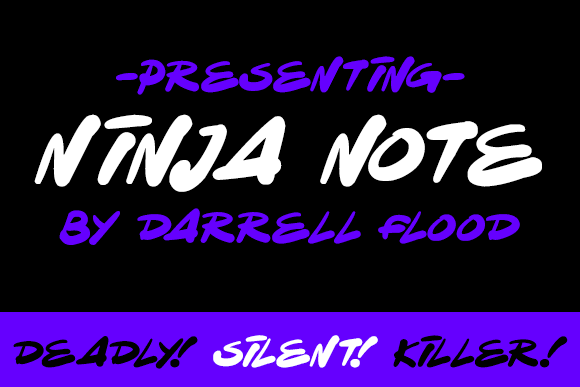
Free Ninja Note Font
Today we're glad to feature this free ninja note font. Font Space has created this amazing and beautiful free typeface. This is absolutely fancy font so you can easily make world-class designs.